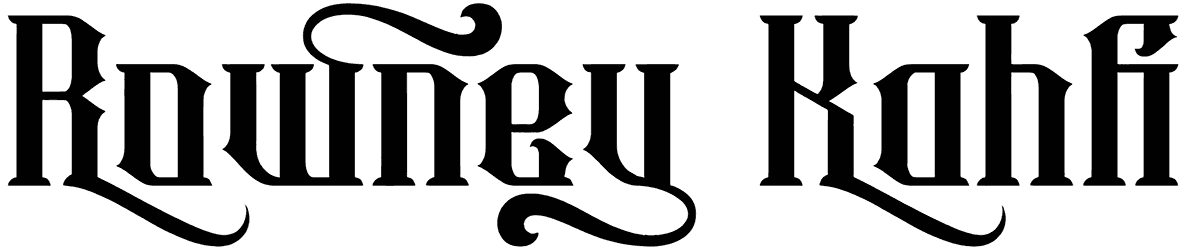
Rowney Kahfi Font
Vintage styles are always one of the most popular visuals and this Victorian font is able to create such a form for your intended design. The tall, condensed, and noble mood of Rowney Kahfi font’s letters will make your design stunning. Let’s set this retro font on your design namely a classic café sign and capture a lot of customers.